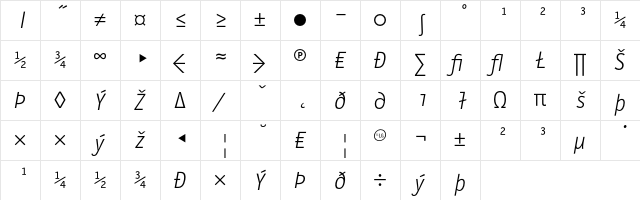
LetterGothicMono LigItalicExp Font Preview
Design Context for LetterGothicMono Typeface
LetterGothicMono brings the precise, column-aligned rhythm of monospaced typography to designs that value technical clarity and systematic order. The dynamic lean of this cut emphasises speed and emphasis in any layout.
Well-suited to data-driven dashboards, coding tutorials, and any design that wants to reference the world of programming.
Pro Tip: Use LetterGothicMono with slightly increased line-height for extended reading — fixed-width spacing can feel dense in longer passages without extra breathing room.